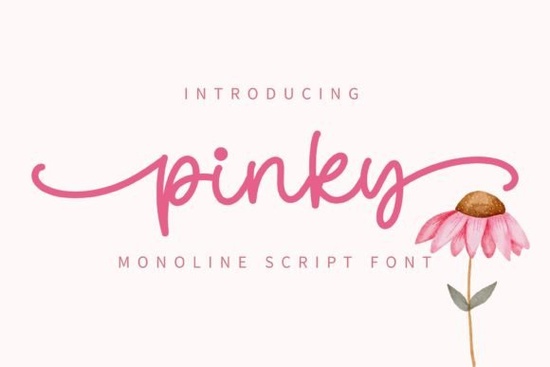
If you’ve been searching for a handwritten font that feels warm, personal, and just a little bit playful, Pinky Font might be exactly what your next project needs. It’s the kind of typeface that doesn’t shout for attention but still manages to stand out perfect for wedding invites, greeting cards, social media quotes, or even small business branding where charm matters more than formality.
What makes Pinky especially useful is how naturally it flows. The letterforms have that soft, hand-drawn quality slightly uneven, gently curved, and full of personality. You’re not getting a stiff corporate font here; you’re getting something that looks like it was written with care, maybe even love. And because it’s PUA encoded, all those extra swashes, alternates, and ligatures are easy to access without needing special software tricks. Just open your favorite design tool, and they’ll be right there in your glyph panel.
Who should use Pinky Font?
This isn’t a font meant for legal documents or technical manuals. But if you’re designing things like:
- Wedding stationery (think place cards, menus, save-the-dates)
- Instagram quote graphics or Pinterest pins
- Print-on-demand mugs, totes, or t-shirts with sweet sayings
- Small shop logos or boutique packaging
- Personalized gifts or craft projects
…then Pinky fits right in. It pairs well with simple sans-serifs for contrast, or you can let it shine solo when you want that cozy, handmade vibe.
How does it compare to other script fonts?
If you’ve tried Nagita or Limon Mint, you know those fonts lean into elegance with sharper strokes and more formal curves. Pinky is softer less “calligraphy class,” more “note passed in high school.” For something bolder and more energetic, Mighty Sunday brings drama, while Amelline offers delicate sophistication. And if you need something clean and modern with just a hint of script flair, Moretimes could be your go-to.
Pinky sits comfortably between casual and polished. It’s not trying to be fancy it’s trying to feel real.
Any tips for pairing it with other fonts?
Absolutely. Since Pinky has such a distinct personality, keep pairings simple. Try combining it with:
- A clean, thin sans-serif like Montserrat Light or Raleway
- A minimalist slab serif for subtle contrast
- Another handwritten font with different weight or style just avoid pairing it with fonts that are too similar, or things can look cluttered
And don’t forget: sometimes, Pinky looks best all by itself. A single word in Pinky on a blank background can say more than a whole paragraph in mixed fonts.
Start simple. Use Pinky for one small element a name, a tagline, a date and see how it feels. Often, the sweetest designs come from letting one font do the talking.